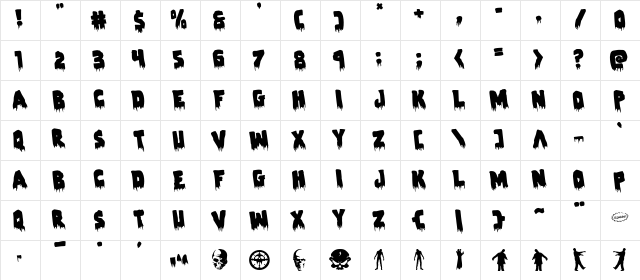
Zombie Control Rotated Regular
Design Context for Zombie Control Rotated Typeface
Zombie Control Rotated is a composed and adaptable typeface that performs quietly and consistently across a wide range of design contexts.